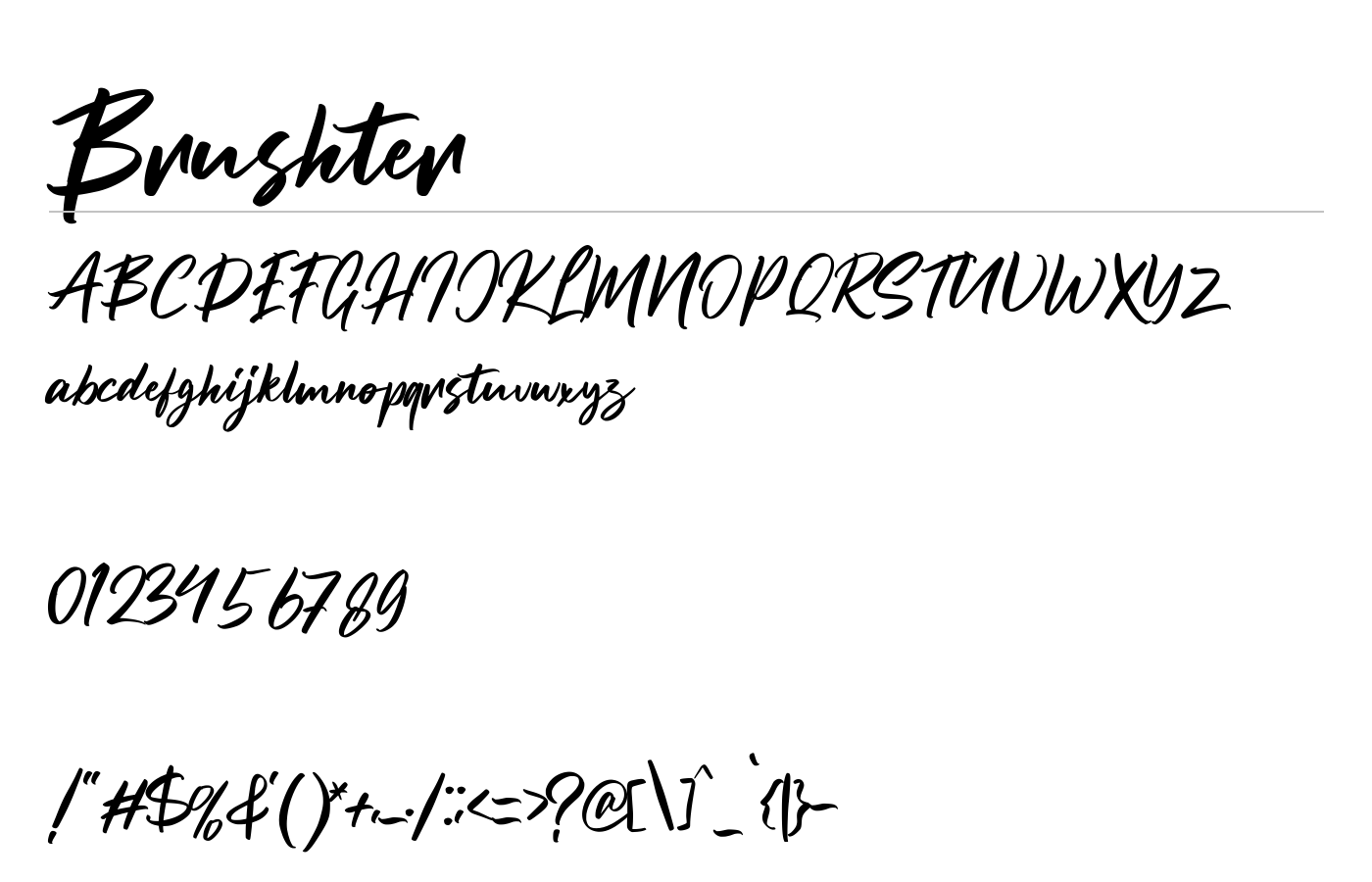
Brushter is a lively, brush-script font that combines casual elegance with a bold, dynamic stroke style. Its smooth, flowing letterforms and moderate contrast give it a personal, handwritten feel, making it perfect for creative branding, invitations, and eye-catching headlines that need a touch of warmth and personality. This font works especially well where a modern, approachable, and artistic vibe is desired.
Brushter Font
About Brushter Font
| Font family | Brushter Font |
| Designer | Candra Hamdani |